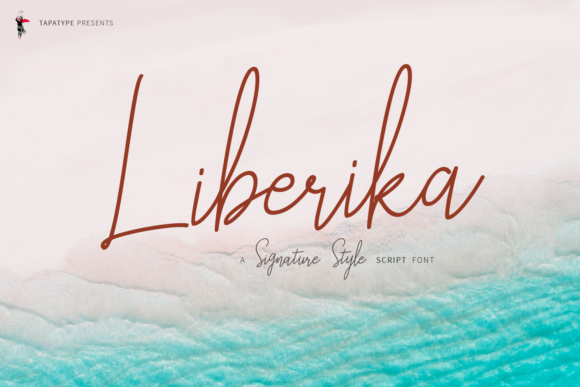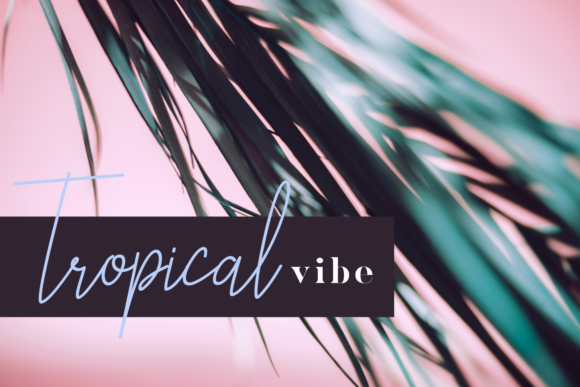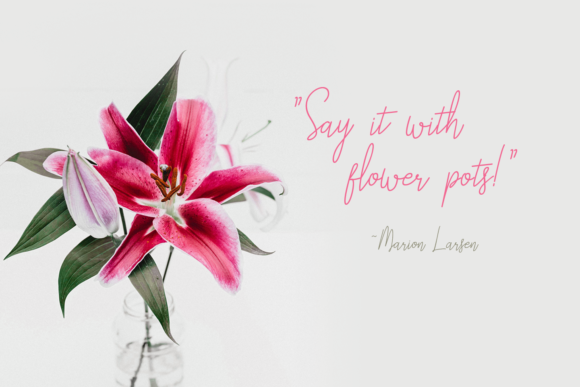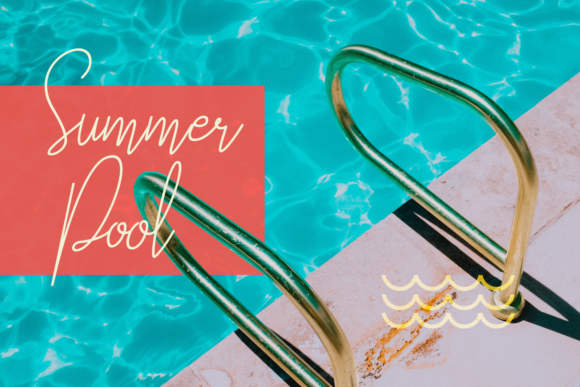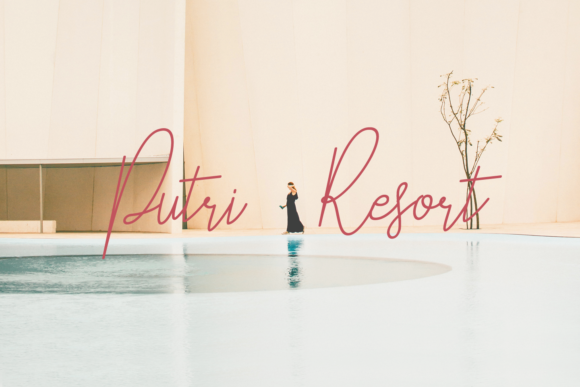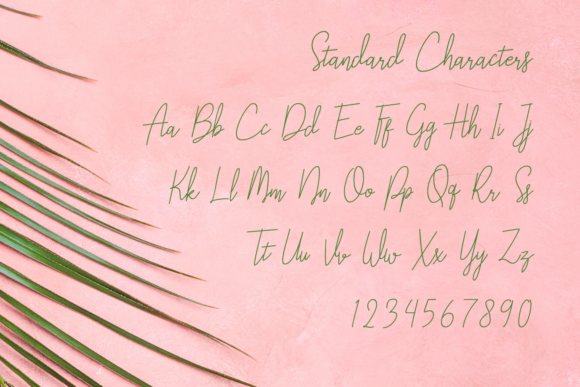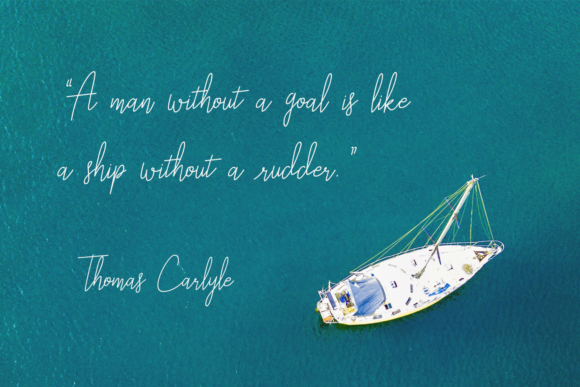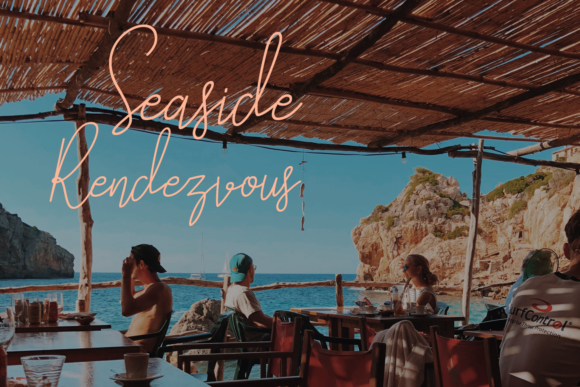
Liberika Font
About Liberika Font
The Liberika is a beautiful signature style script with a handwritten feel. Perfect for wedding invitation, magazines, headlines, posters, and much more!